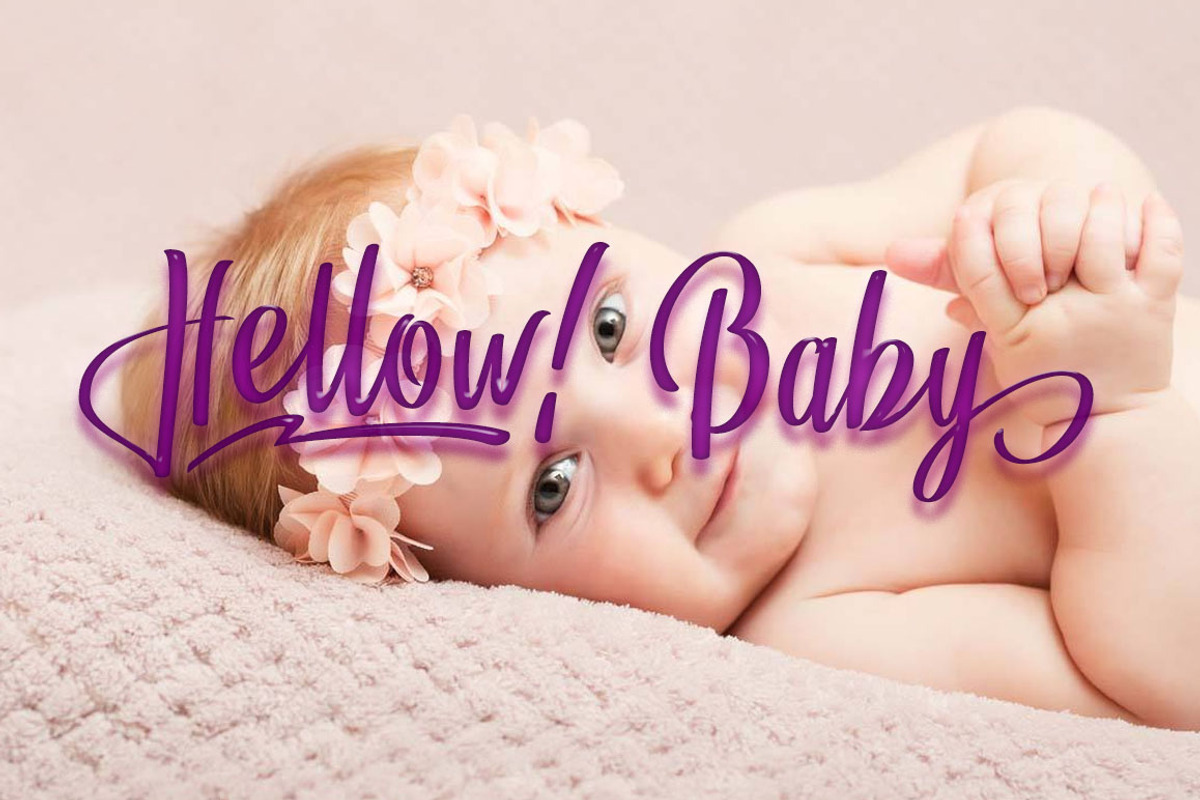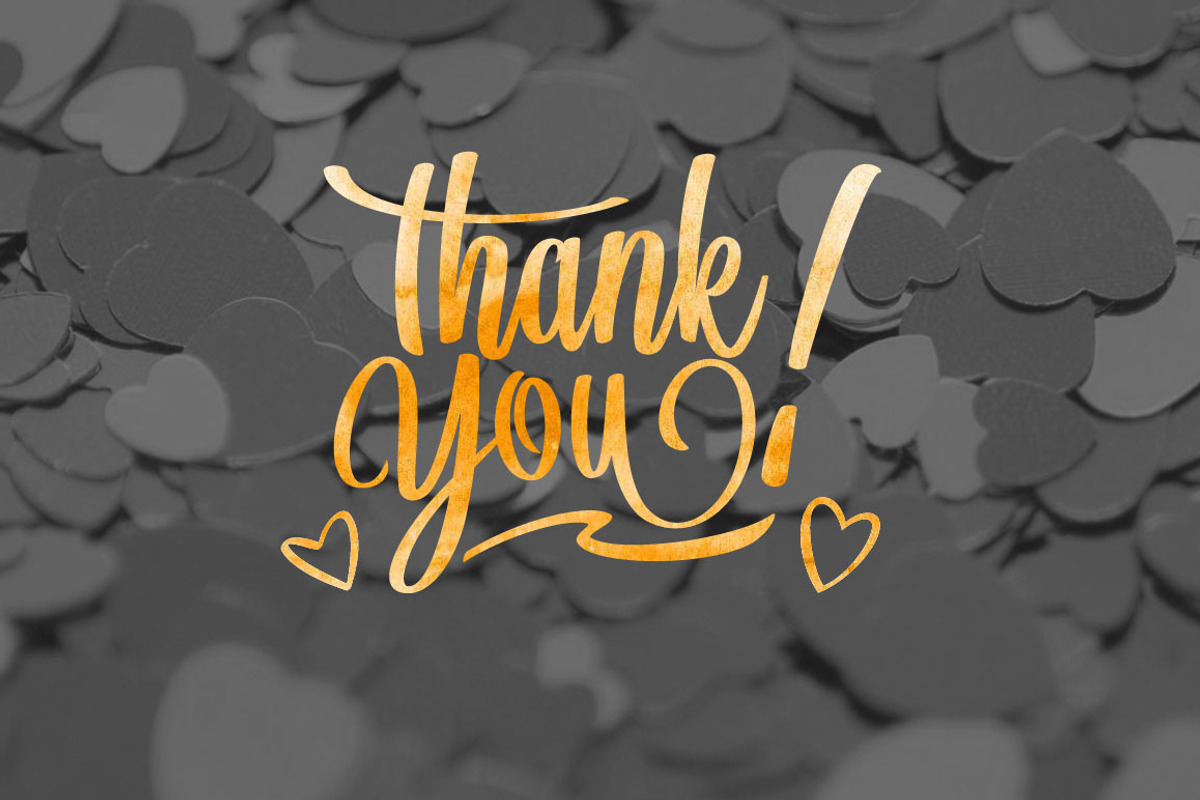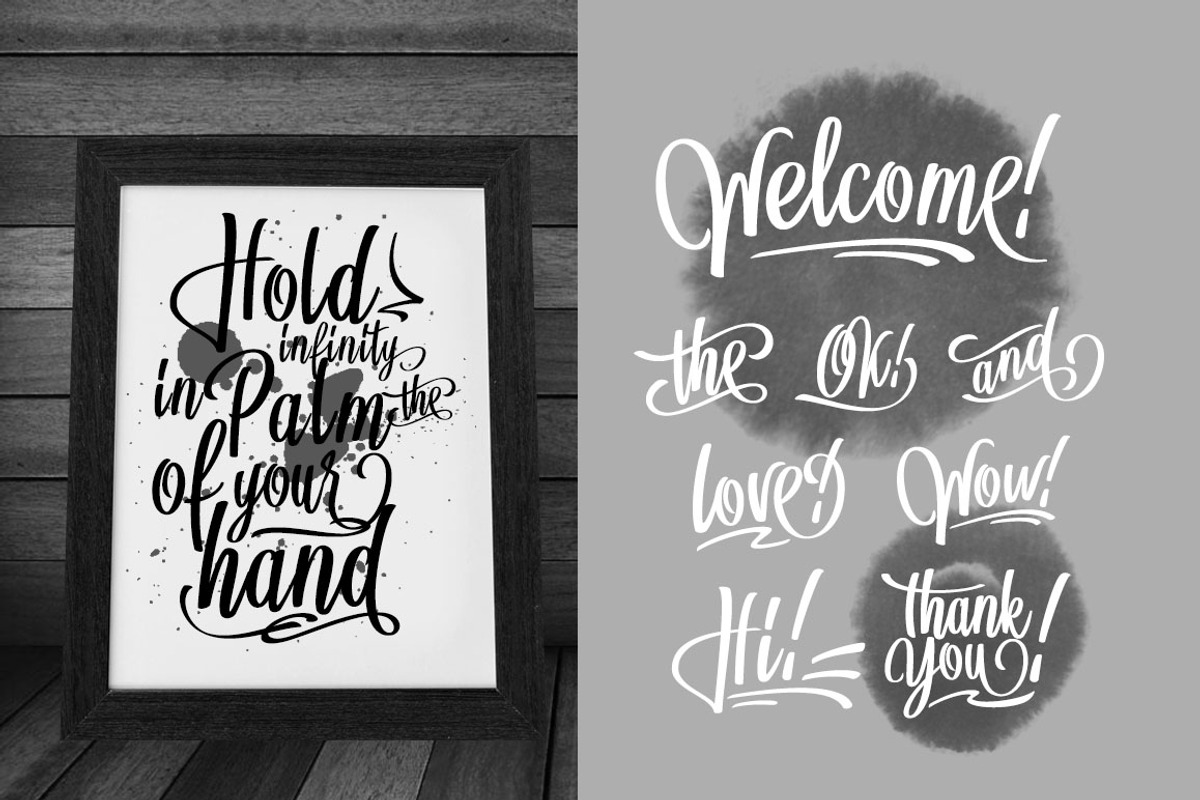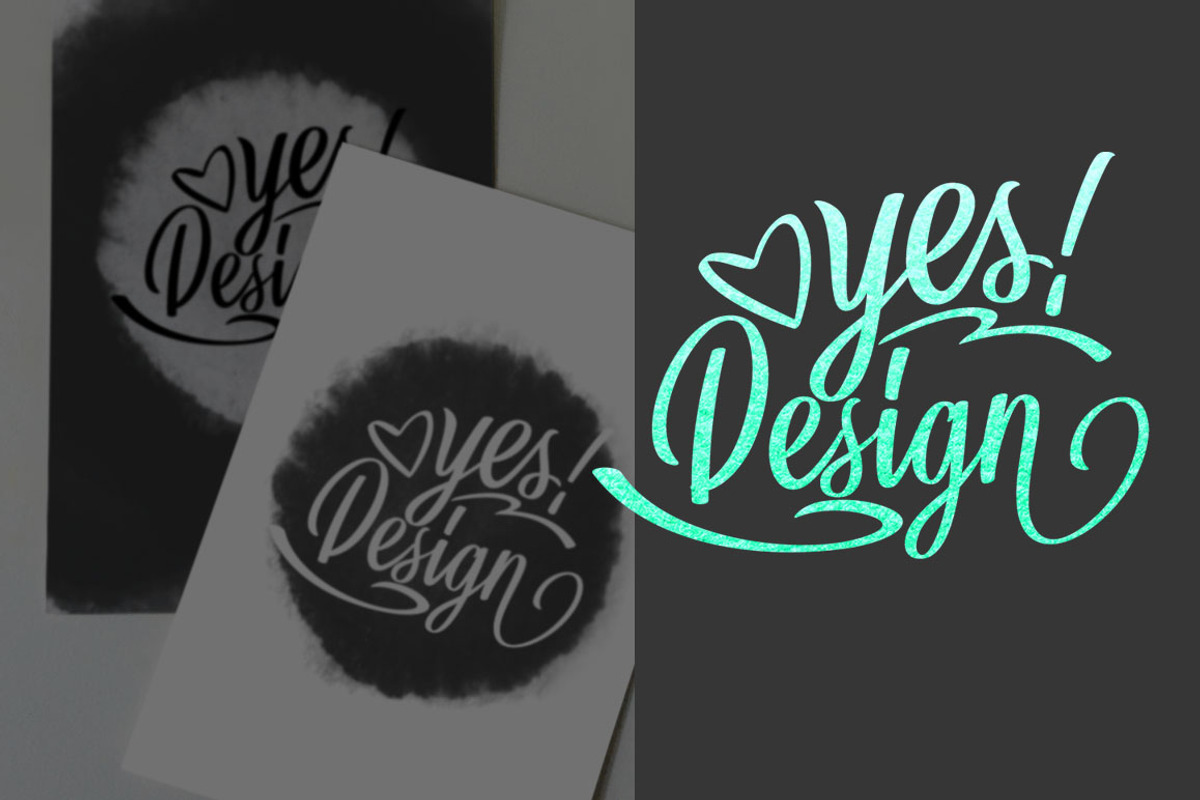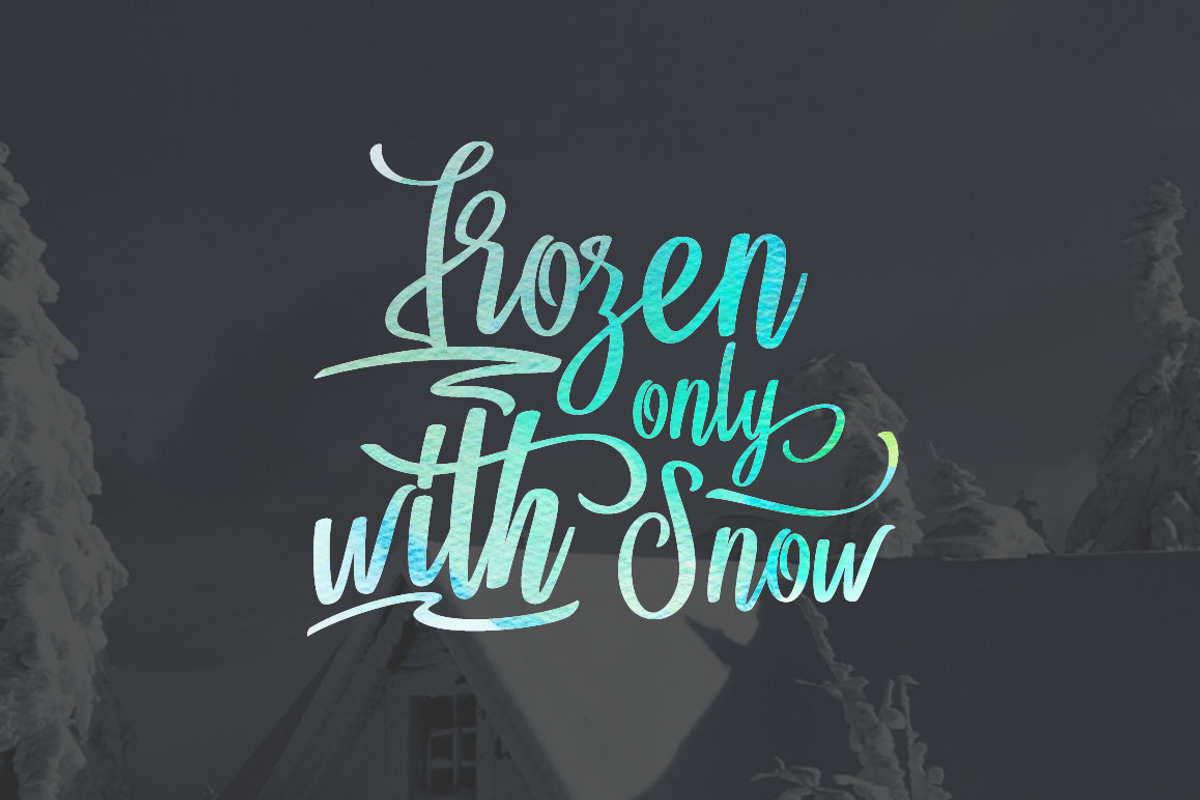
BrushWork TypeFace
BrushWork is a lively and Lovely Handwriting font, Some lowercase letters are alternately set and some popular words are free of confusing fonts,and doodles to bring your type designs.
Why BrushWork TypeFace is worth a look
BrushWork TypeFace by alphadesign fits naturally into Branding, posters, packaging, typography.